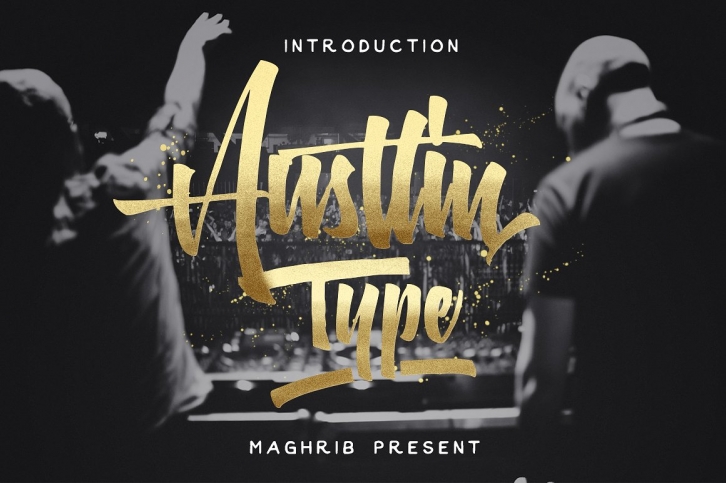
Austtin Type is a beautiful font that was designed by maghrib. It's a great choice for designers and creatives who need such a font. It was released on September 21, 2018 and the file size is 19.43 MB. Austtin Type may give a more youthful, expressive and casual look to your project. It is a very beautiful, refined, elegant, and high-quality font.